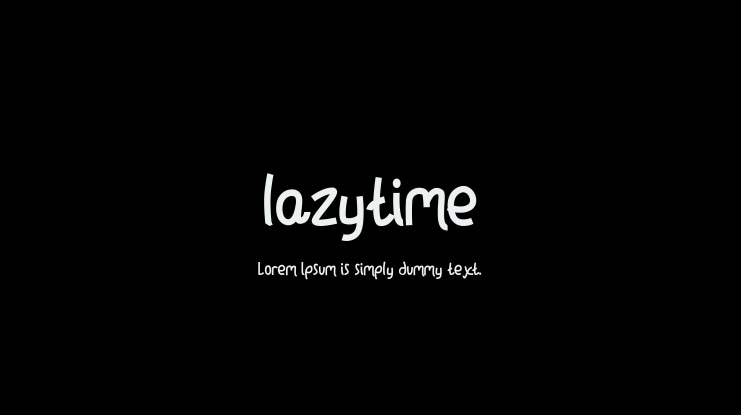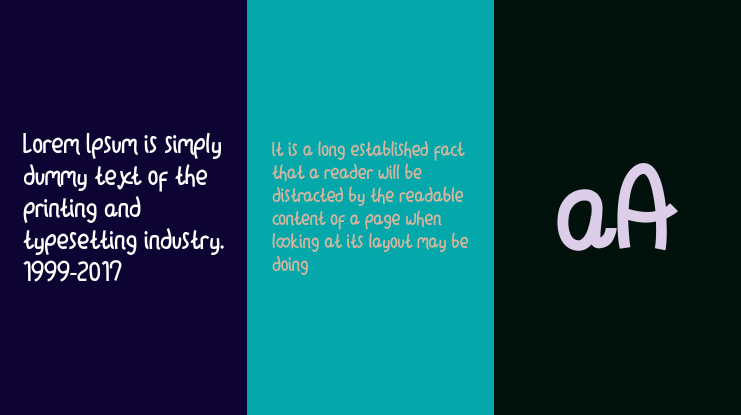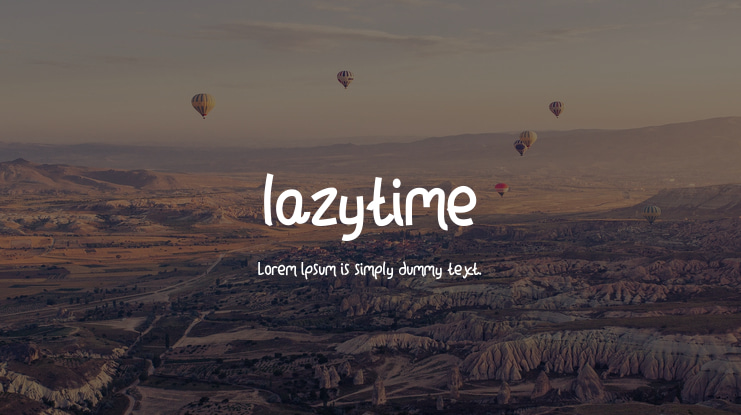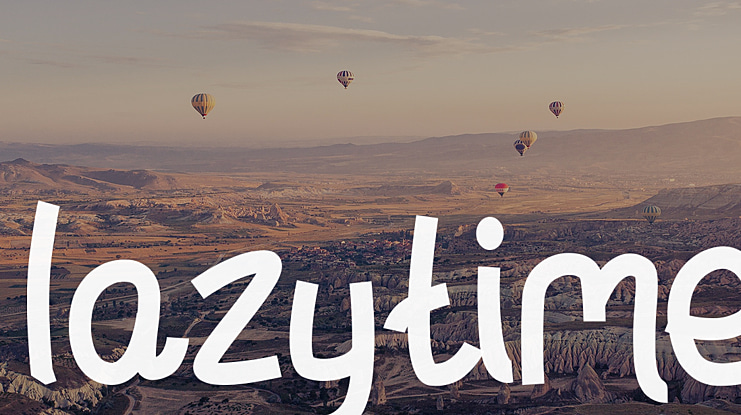
lazytime Font
hello guys How are you guys ? I'm sure it's very good! introduce, this is my latest product, I named this product lazytime
lazytime is font made with a pleasing impression the shape is a little irregular in terms of size so it is not boring to look at
lazytime having a rather thin thickness will not be suitable for text length because it will be a little confusing but very good to use on: advertising like banner, spanduk, and others, poster, book cover, magazine, and quote.